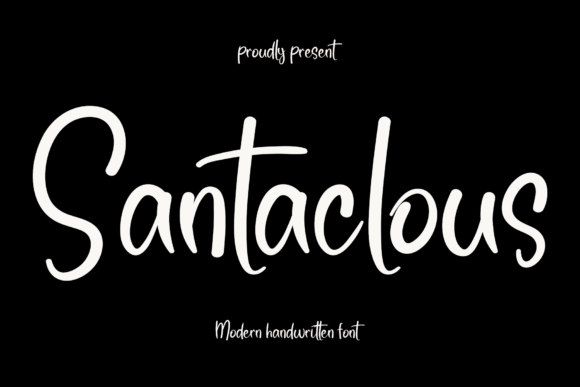
Journey into the world of festive typography with Santaclous Font, a captivating script typeface that exudes charm and playfulness. Its cheerful curves and whimsical strokes evoke a sense of celebration, making it the perfect font for adding a touch of merriment to your creative projects.
As a member of the script font family, Santaclous possesses an inherent elegance and fluidity that captivates hearts. Its carefully crafted characters dance across the page, creating a visual symphony that draws the eye and captures the imagination. Whether you're crafting wedding invitations, greeting cards, or party posters, Santaclous Font is the perfect choice for adding a touch of whimsy and delight.
With its enchanting personality, Santaclous Font can transform ordinary words into extraordinary expressions. Its versatility knows no bounds, adapting seamlessly to a wide range of design styles and applications. Unleash your creativity and let Santaclous Font lead you on a journey of typographic exploration.
But what truly sets Santaclous Font apart is its ability to evoke emotions and create connections. Its playful nature invites smiles and laughter, while its charming demeanor fosters a sense of warmth and camaraderie. Whether you're creating designs for personal use or for clients, Santaclous Font will leave a lasting impression that resonates with audiences of all ages.
So, embrace the festive spirit and let Santaclous Font guide you towards typographic excellence. With its captivating charm and endless possibilities, Santaclous Font is the perfect addition to your creative arsenal, ready to transform your designs into works of art.